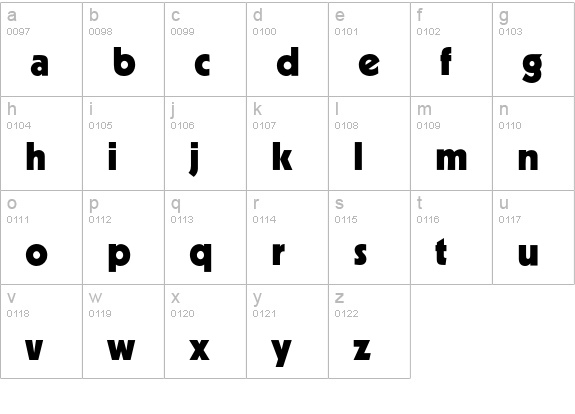
Kabel* STEMPEL Black Font Details
Kabel* STEMPEL Black is a maximum-weight, dramatic variant in the Kabel* typeface family \xE2\x80\x94 well suited to maximum-impact headlines, posters, and packaging.
Kabel* STEMPEL Black font is a stunning display font that exudes a sense of boldness and elegance. With its sleek and modern design, it is sure to make a statement in any project or design. This font is perfect for headlines, logos, posters, branding, and much more. What sets Kabel* STEMPEL Black font apart is not only its striking appearance but also the fact that it is available for free. Yes, you read that right! This incredible font can be freely downloaded at FontsMarket.com. Now you can elevate your designs without breaking the bank. The sharp edges and clean lines of Kabel* STEMPEL Black font give it a sophisticated look that captures attention and demands to be noticed. Whether you're designing for print or digital platforms, this font will add a touch of professionalism and style to your work. With its versatility, Kabel* STEMPEL Black font can be used in a wide range of projects. From magazine layouts to website headers, this font will bring a touch of class and uniqueness to your design. Its bold presence will ensure that your message is conveyed with maximum impact. Don't miss out on this fantastic opportunity to enhance your design projects with Kabel* STEMPEL Black font. Download it for free at FontsMarket.com and unlock its unlimited potential. Elevate your designs and captivate your audience with this exceptional font.